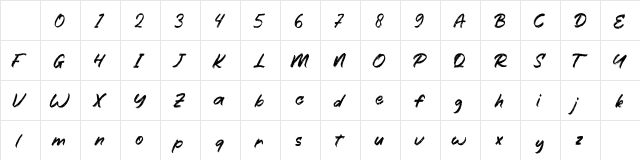
Breksit Brush flows with the natural rhythm of handwritten lettering, making it ideal for designs that call for warmth and personal expression.
Font Pairing: Combine Breksit Brush with a simple geometric sans for maximum contrast - the tension between flowing curves and clean structure is a classic typographic pairing.
Pro Tip: Use Breksit Brush for short runs of text - names, titles, or taglines. Extended body copy in script faces tires the eye quickly.